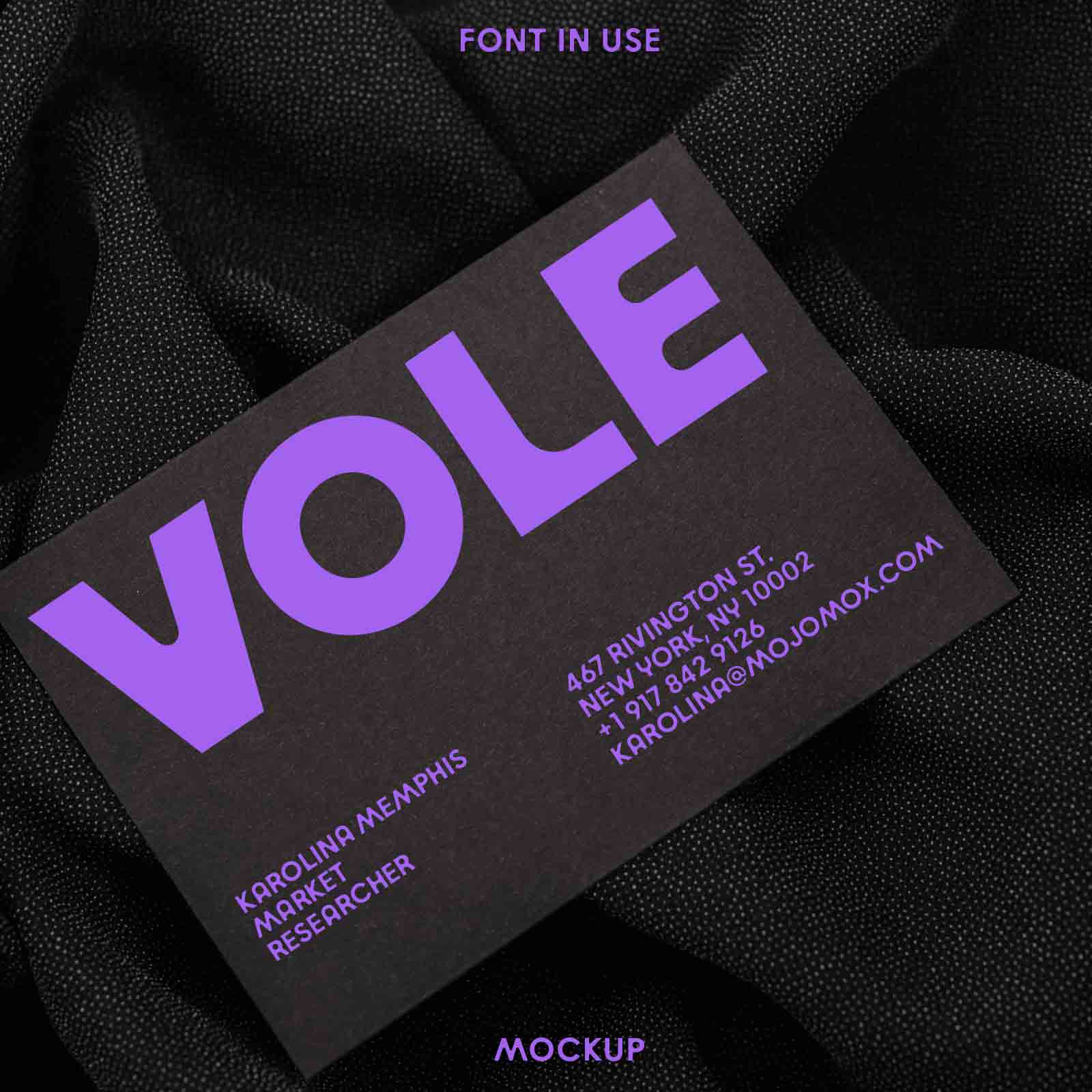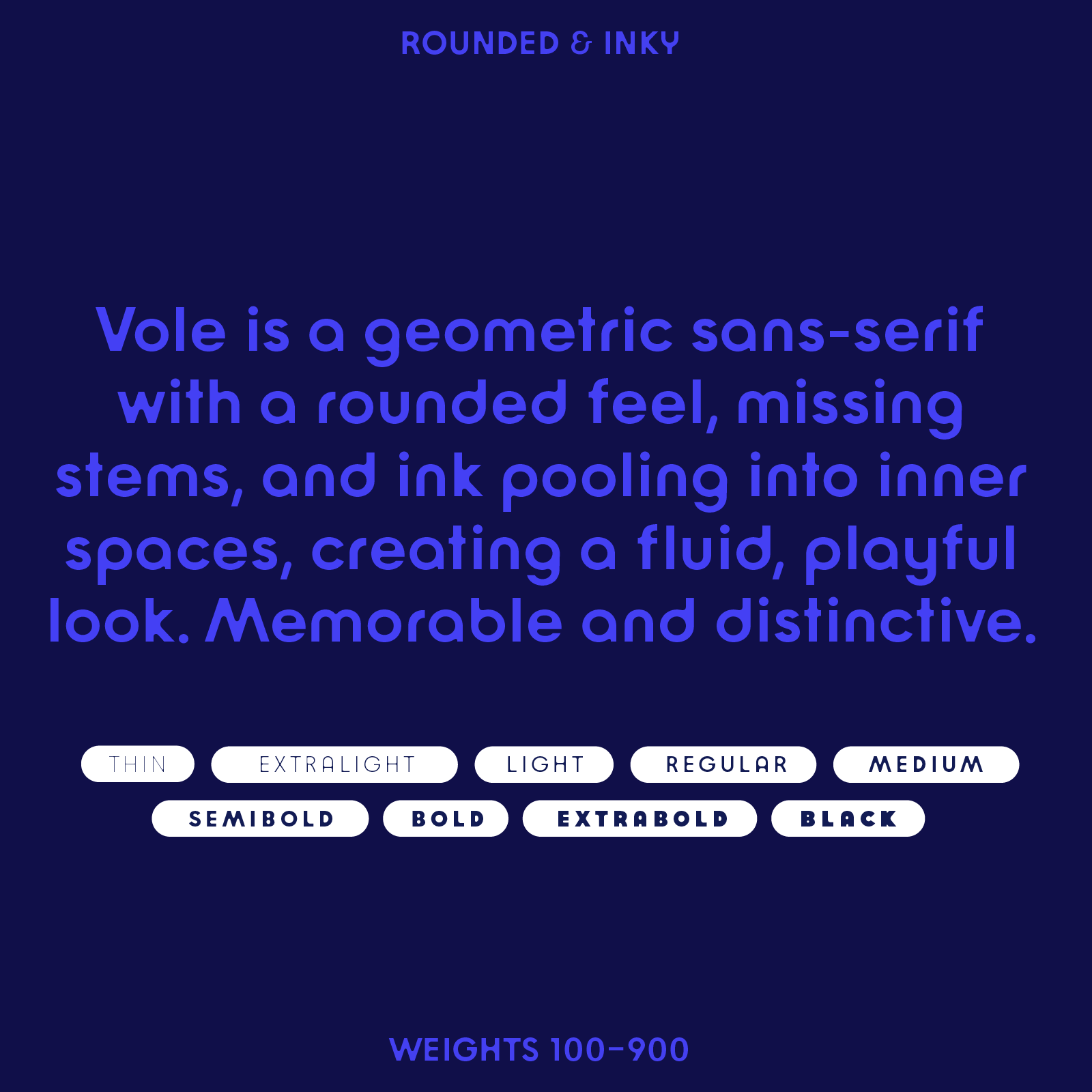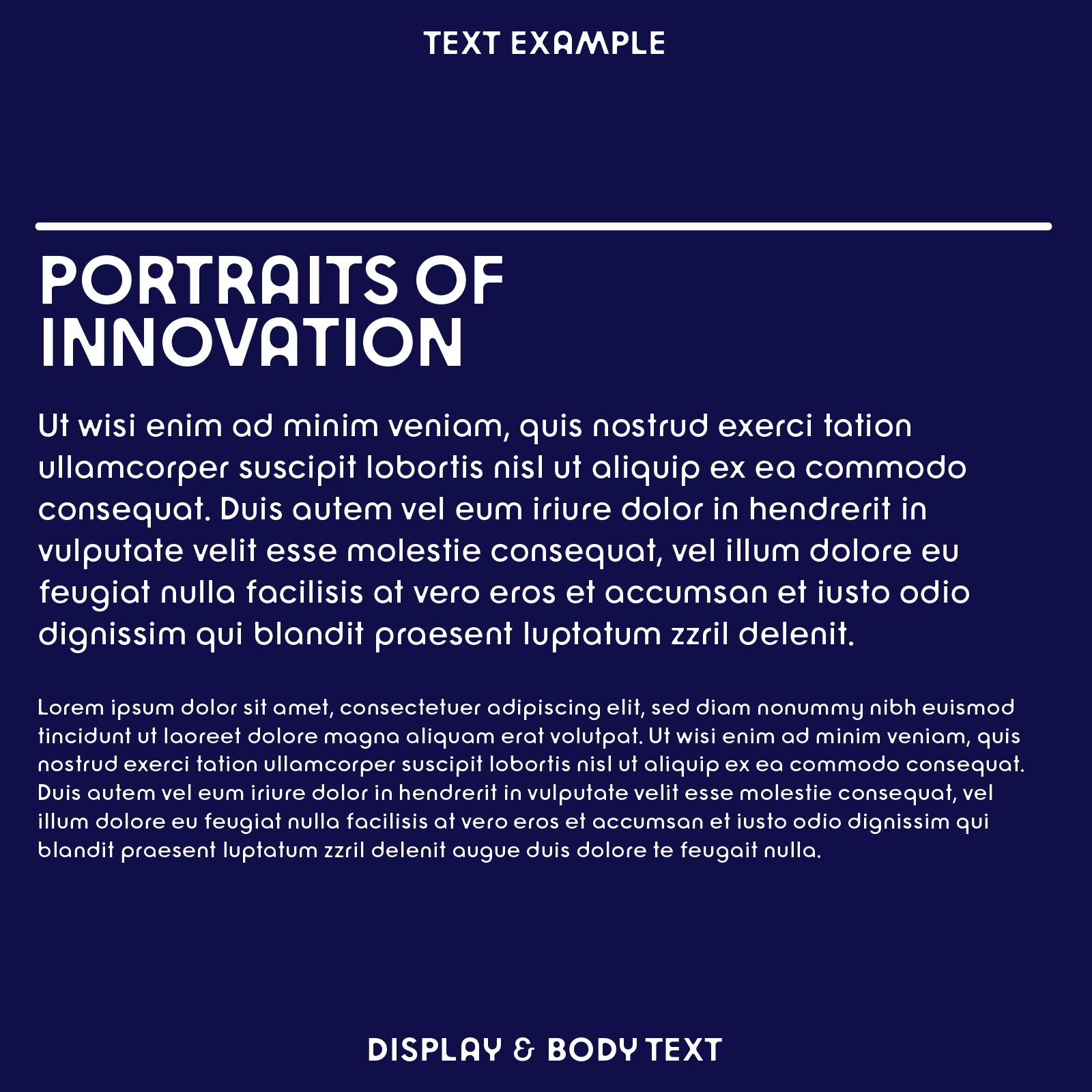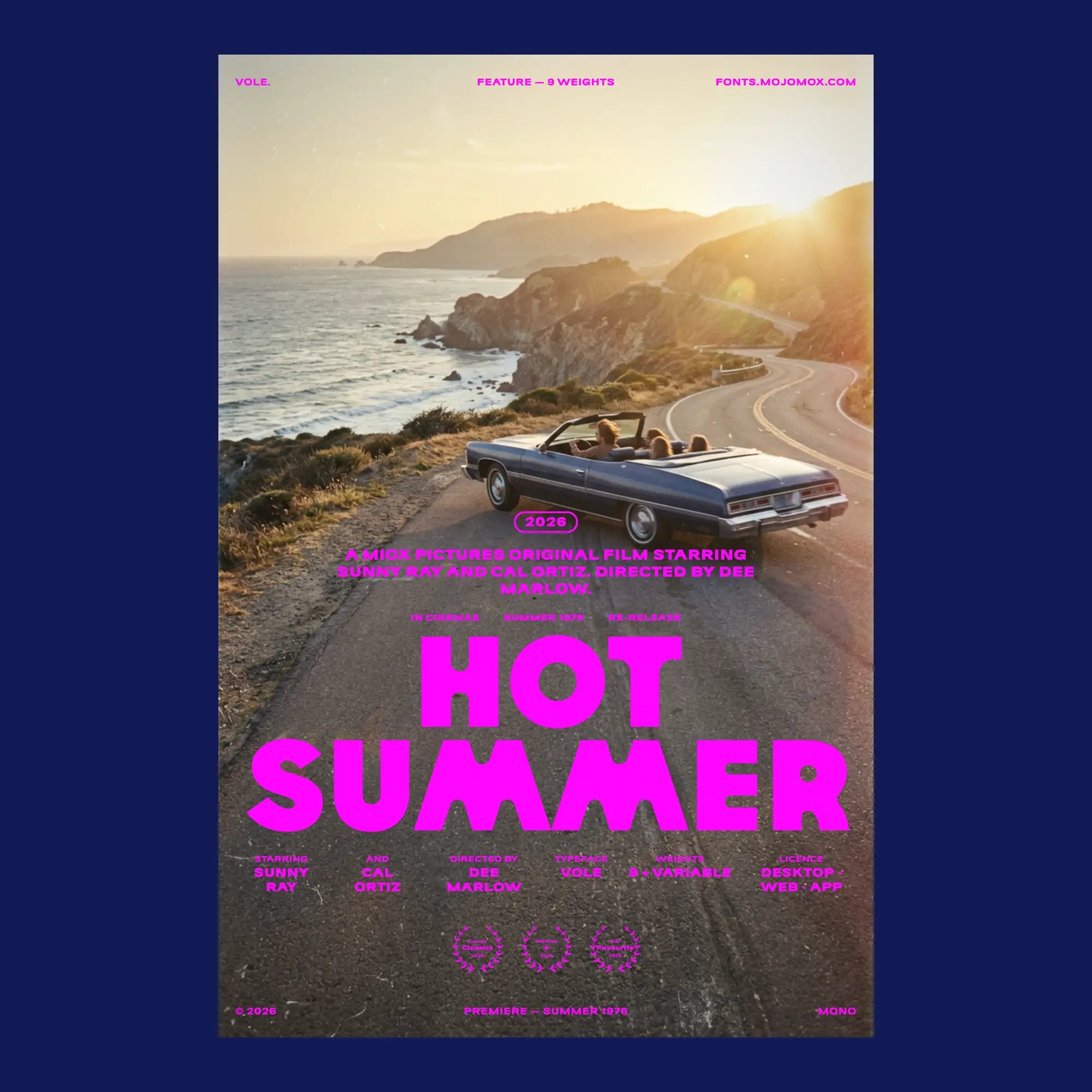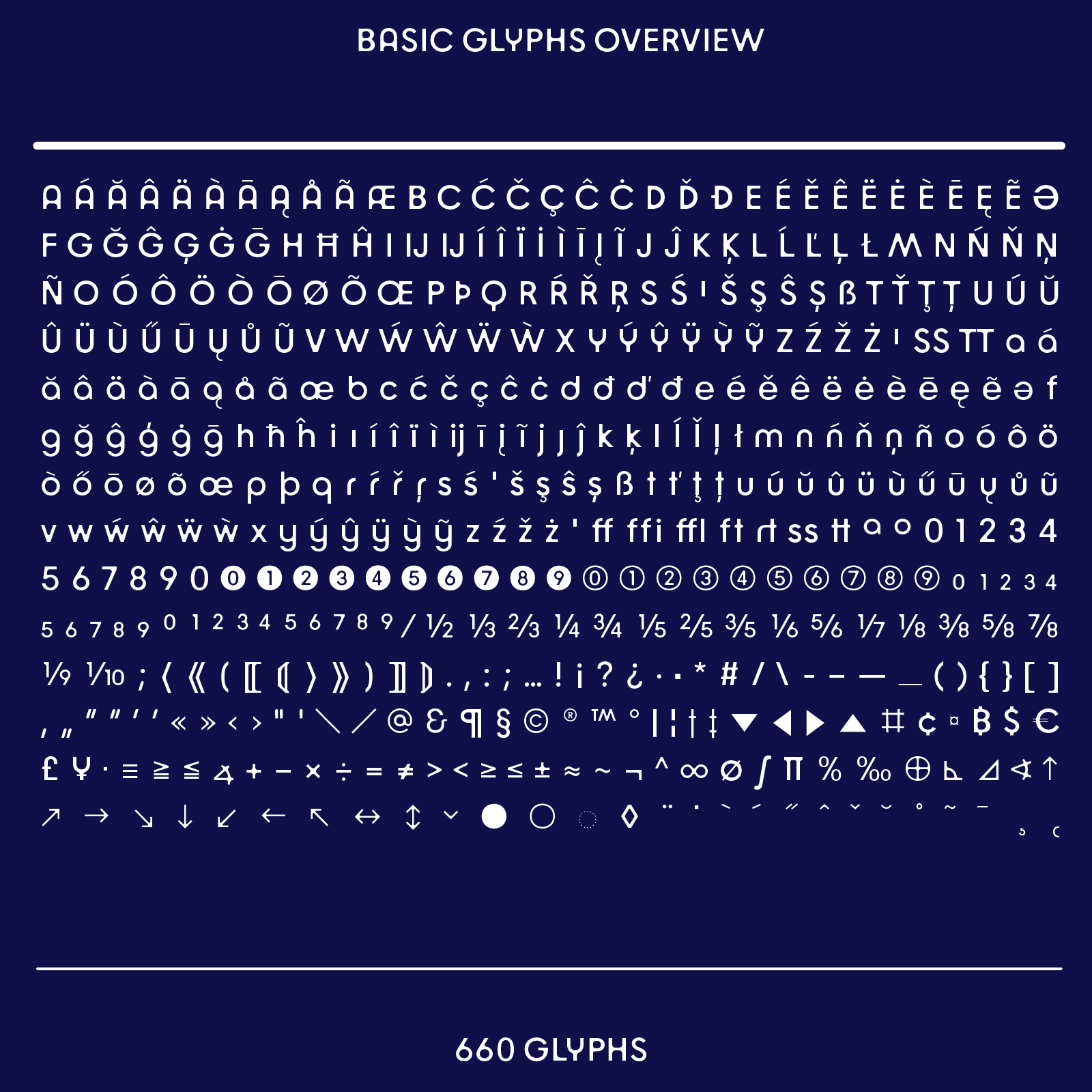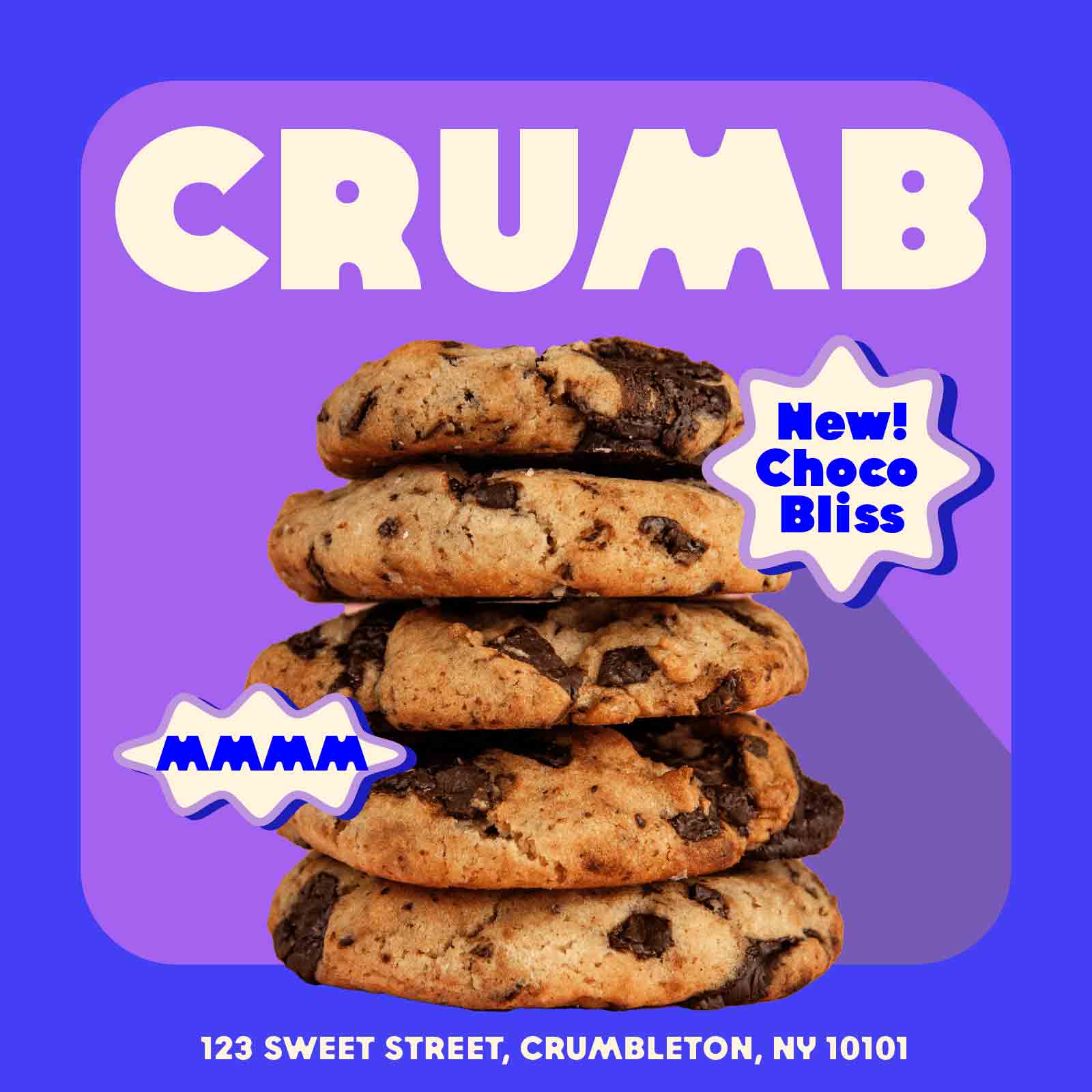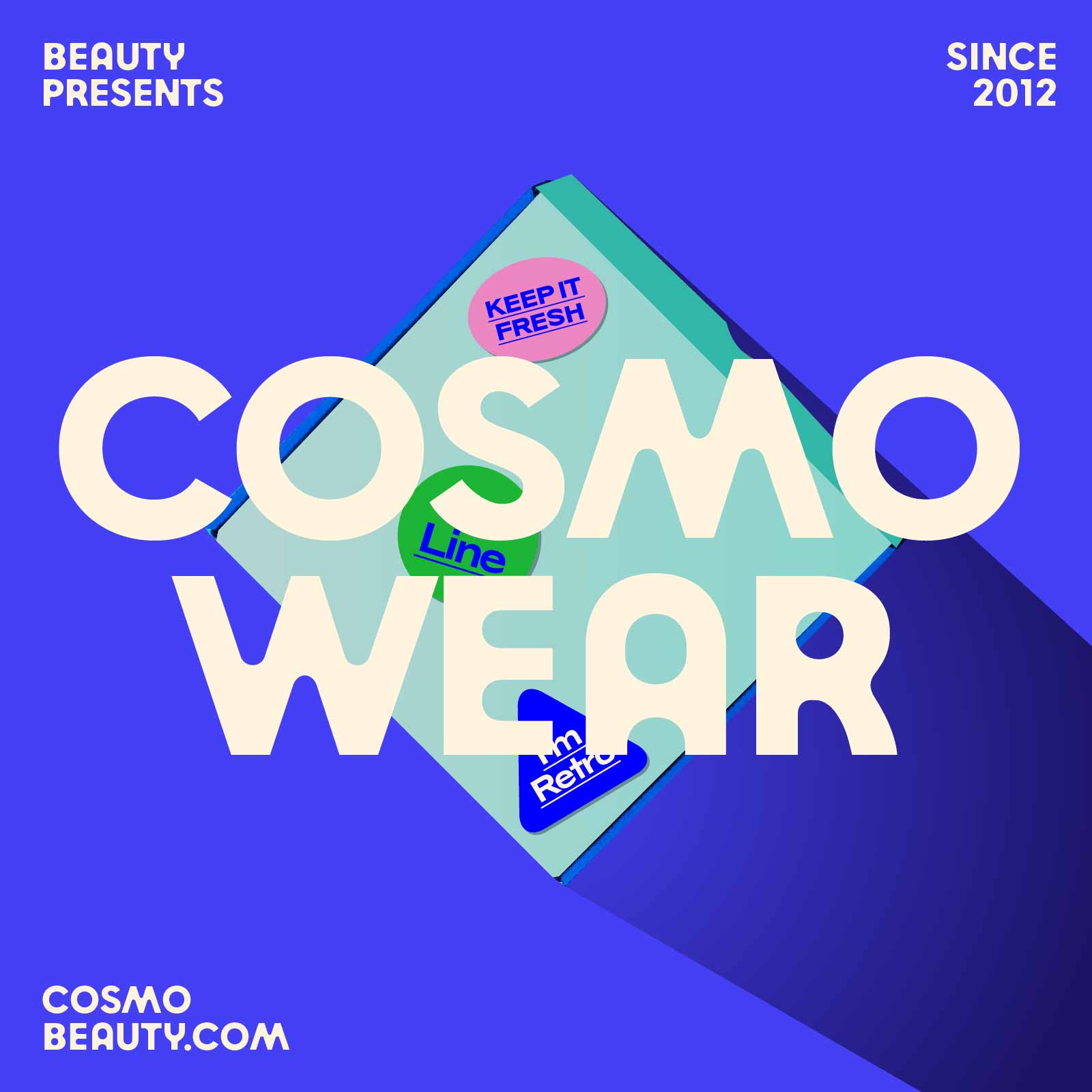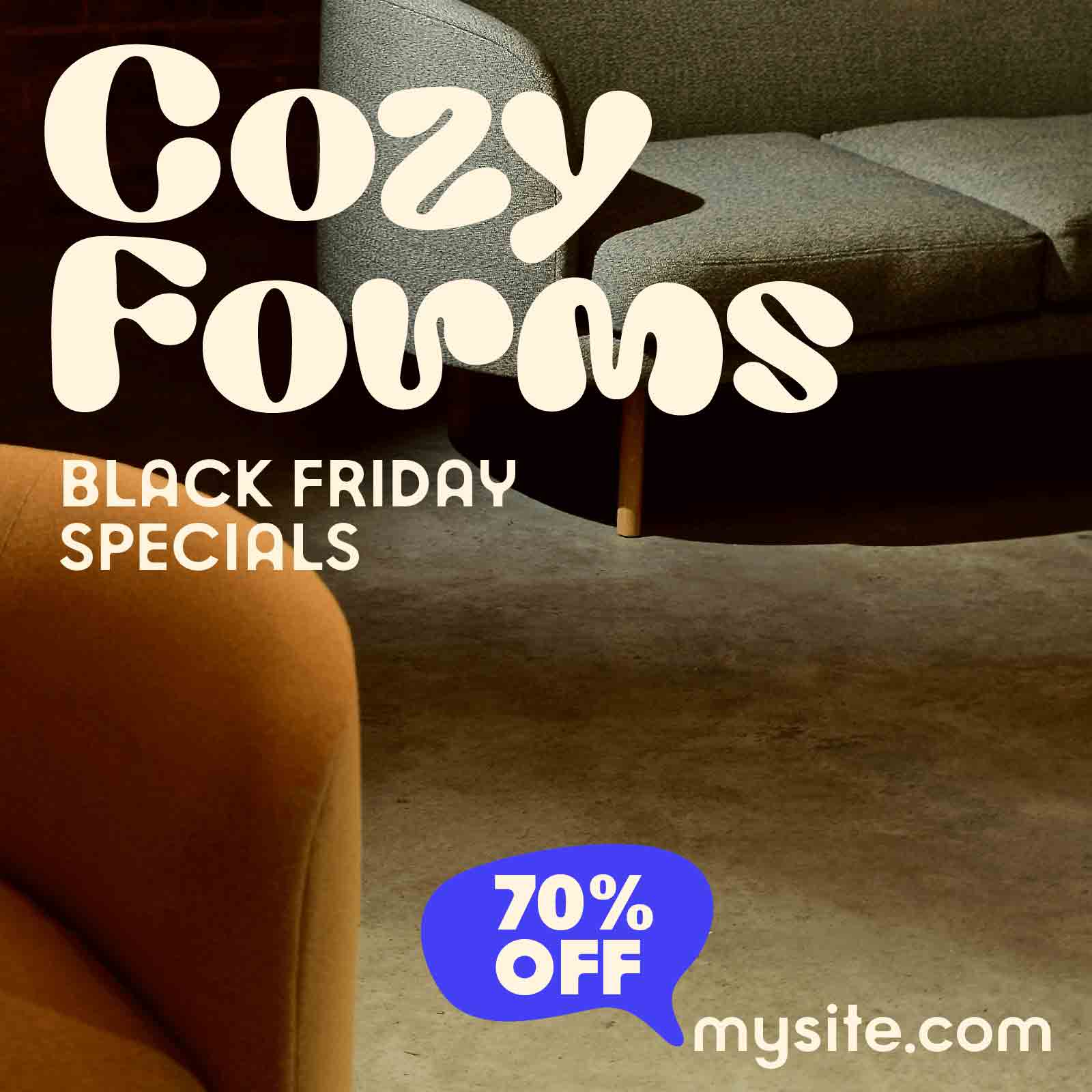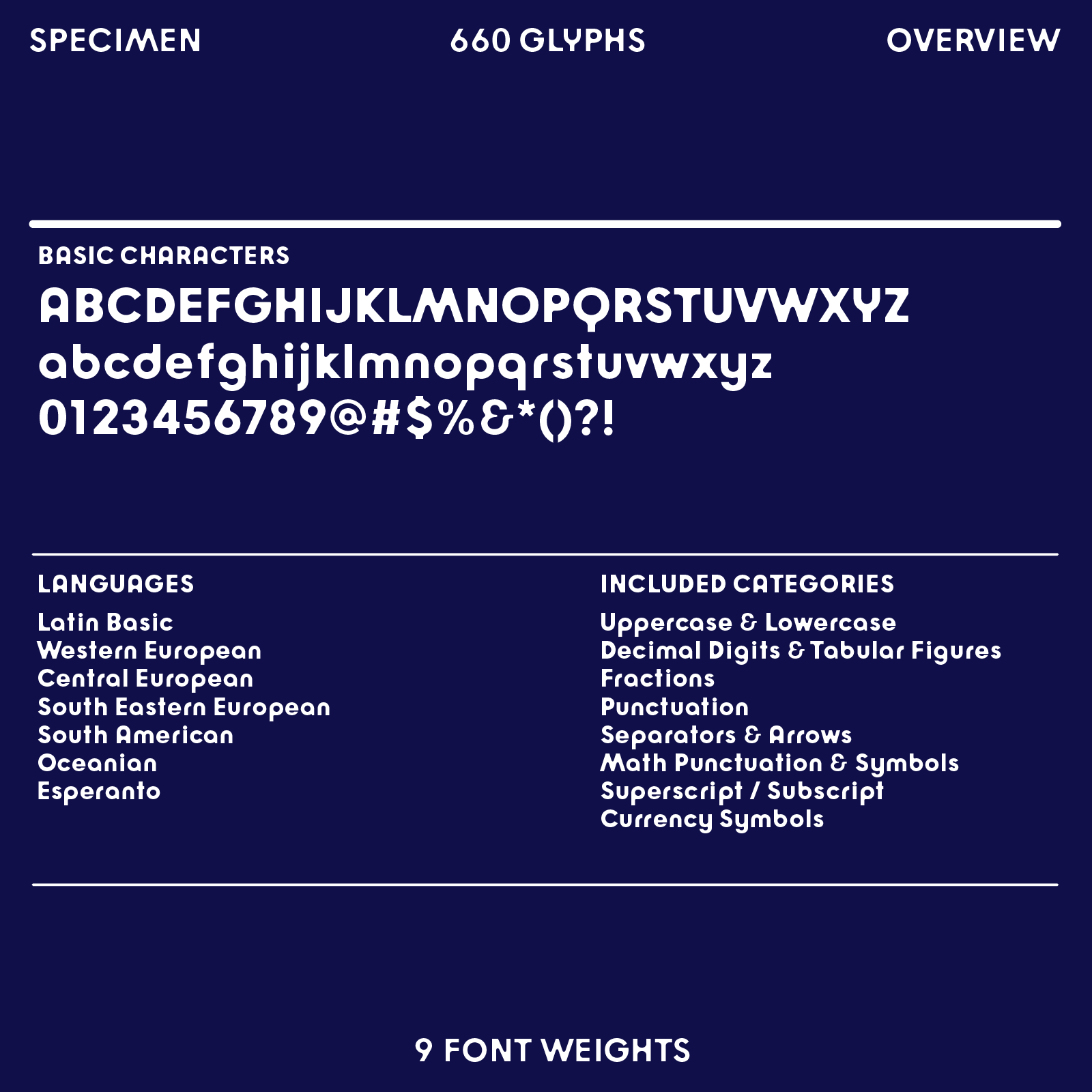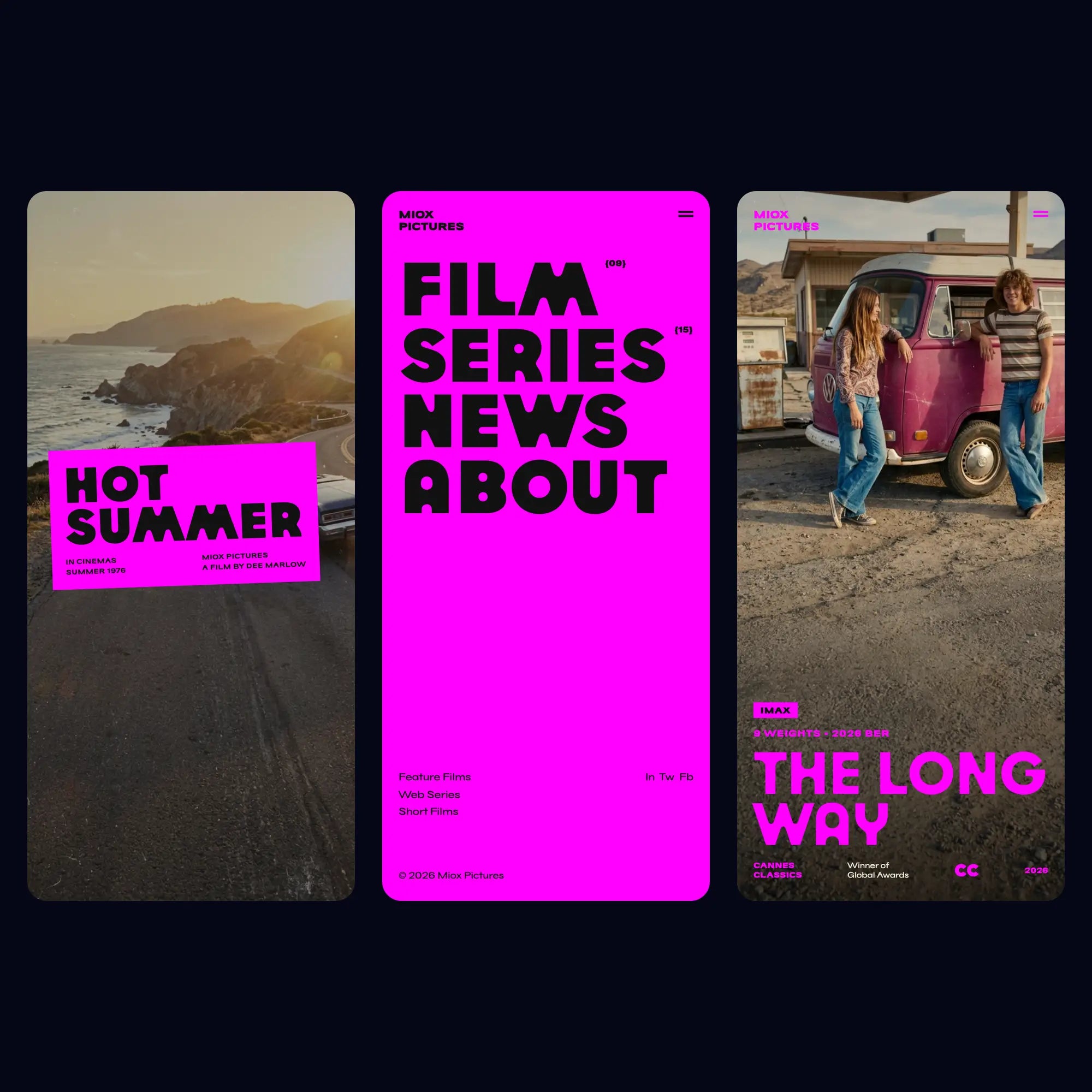
Vole—Modern Geometric Sans Serif Font, Rounded Counters
About Vole · Geometric sans · Rounded counters
Friendly and a little unexpected.
Vole is a geometric sans-serif with rounded counters and a fluid, distinctive interior shape. Great for logos, headlines, and brand systems that want to feel modern, friendly, and a little unexpected.
Available in 9 weights (Thin to Black) plus a full family and a variable font.
- Logos
- Headlines
- Brand systems
Vole in detail
Family
9 weights, Thin to Black, plus a variable font. 665 glyphs, 5 stylistic sets.
Languages
Latin, Western European, Central European.
Figures
Proportional, tabular, slashed zero.
OpenType
Case-sensitive punctuation, fractions, standard ligatures, ordinals.
Ligatures
ff fi fl ffi ffl tt rton by default